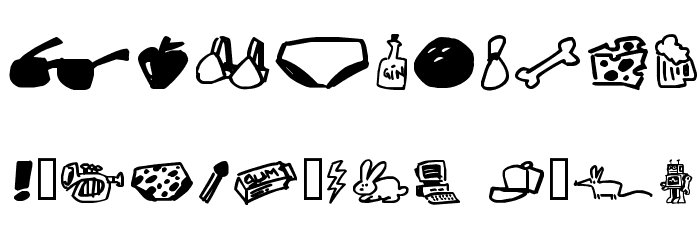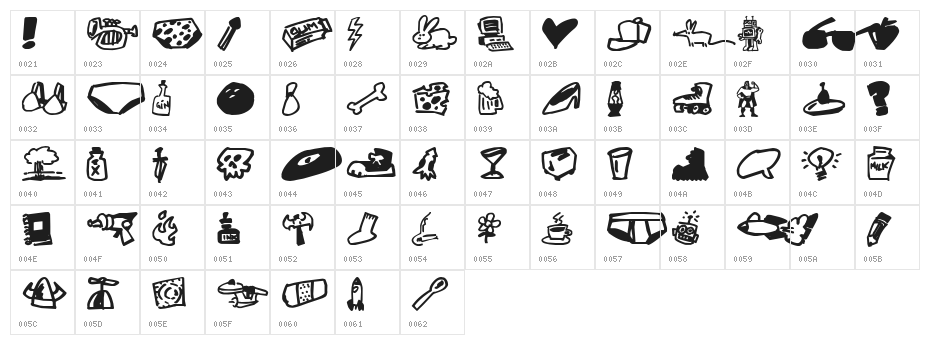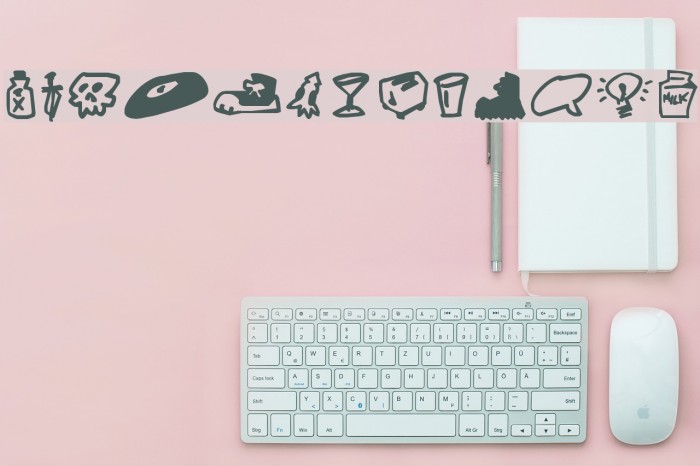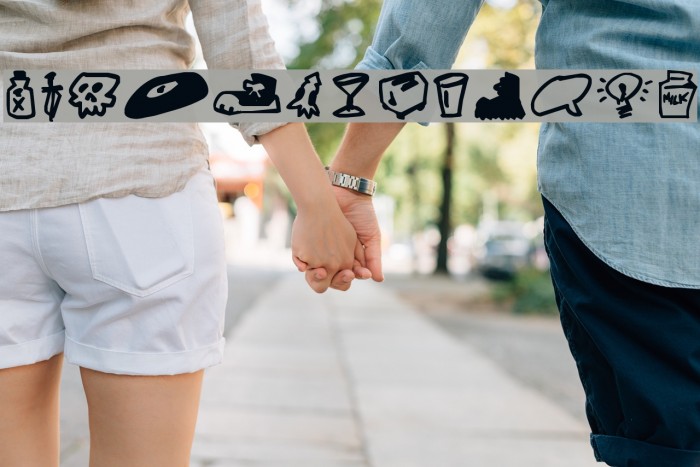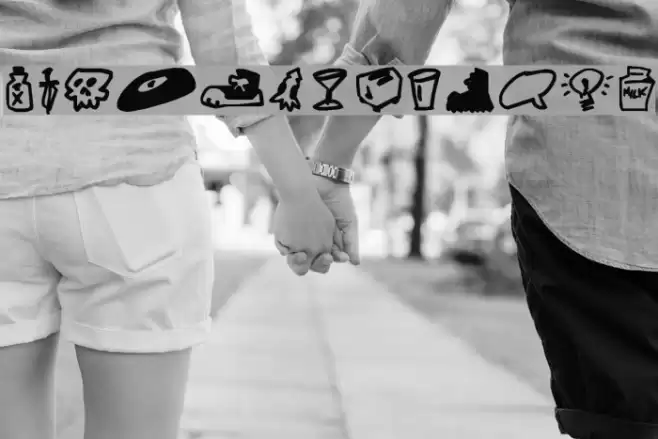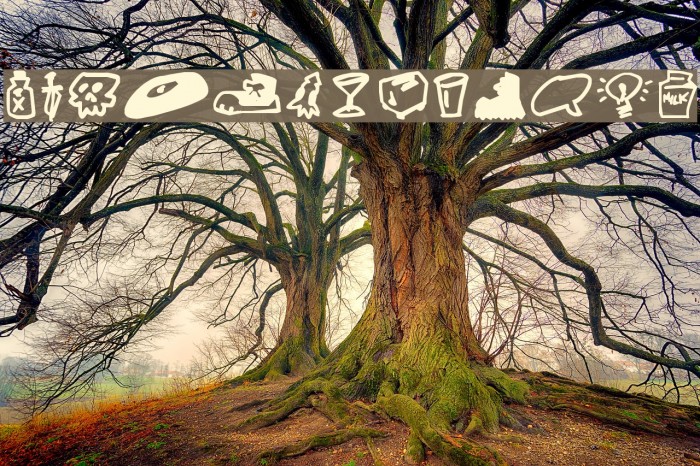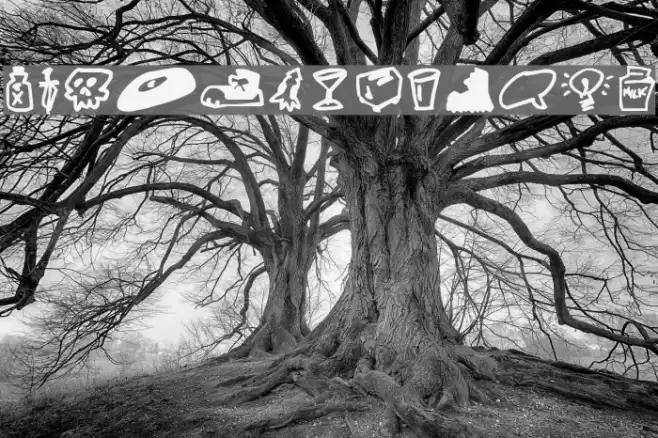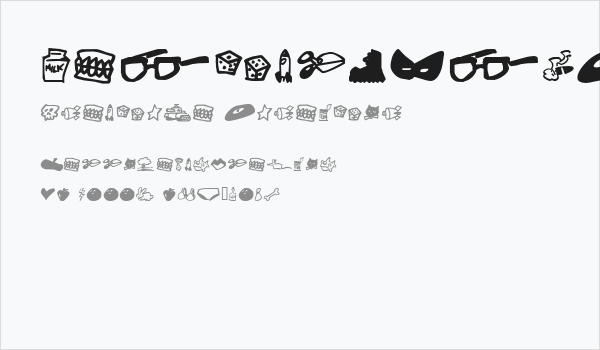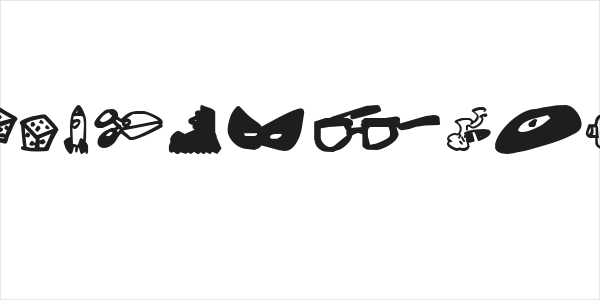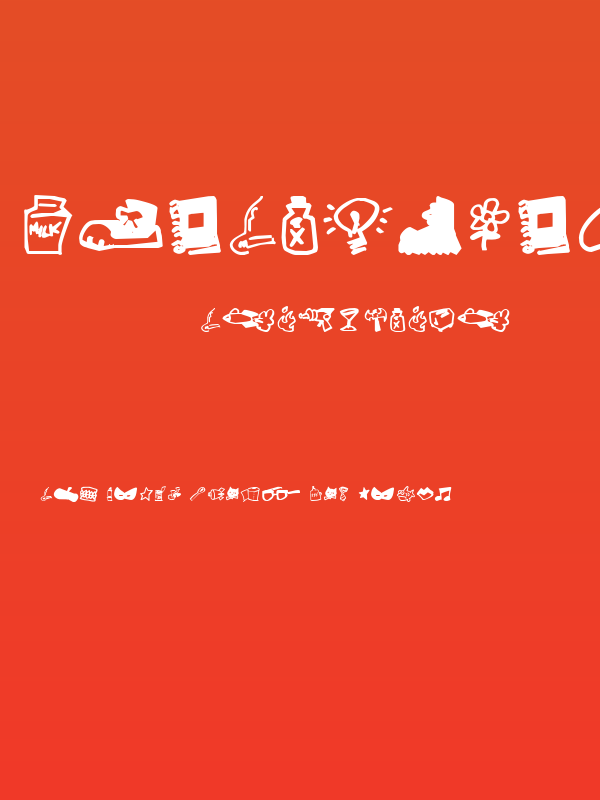
MentalJunkDrawer Font
| Overall Style | Playful, Whimsical, Decorative |
| Use Case | Icons, Decorative elements, Themed graphics |
| Proposed Projects | Children's books, party invitations, comic strips, playful branding, scrapbooking, educational materials. |